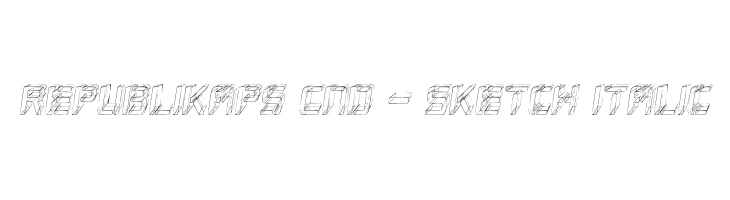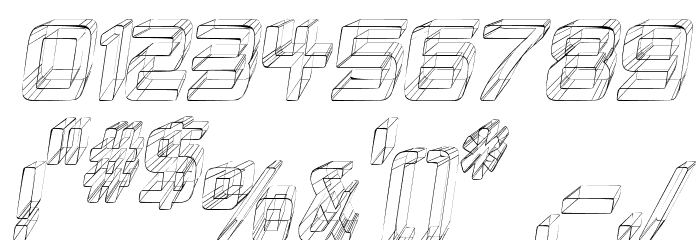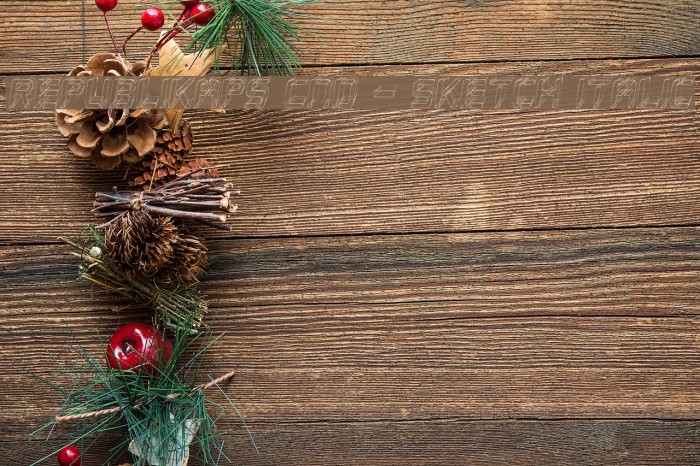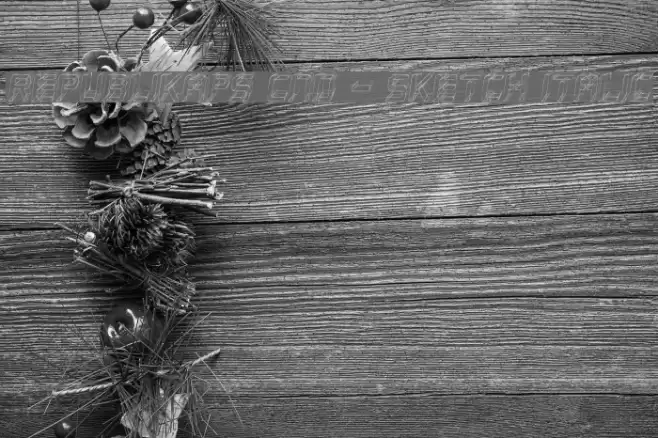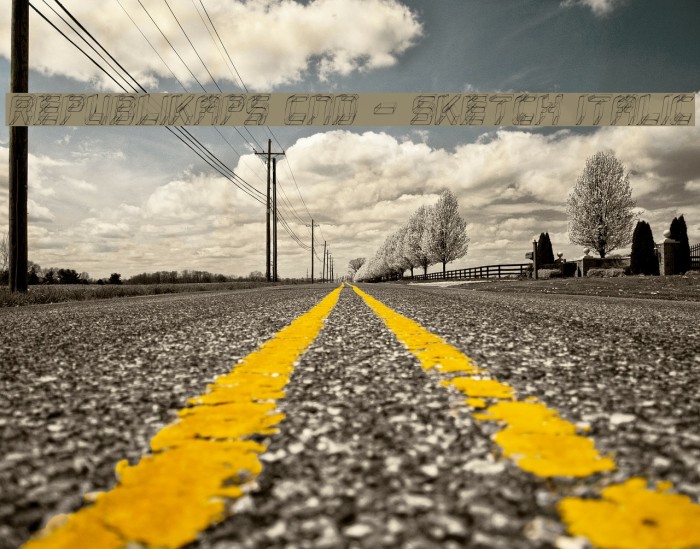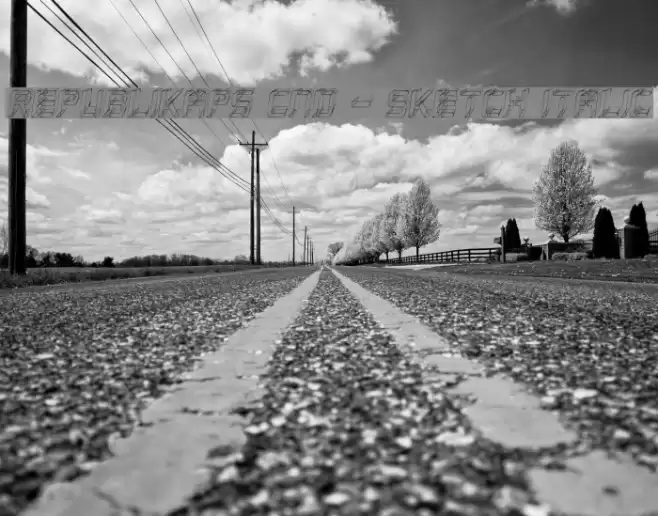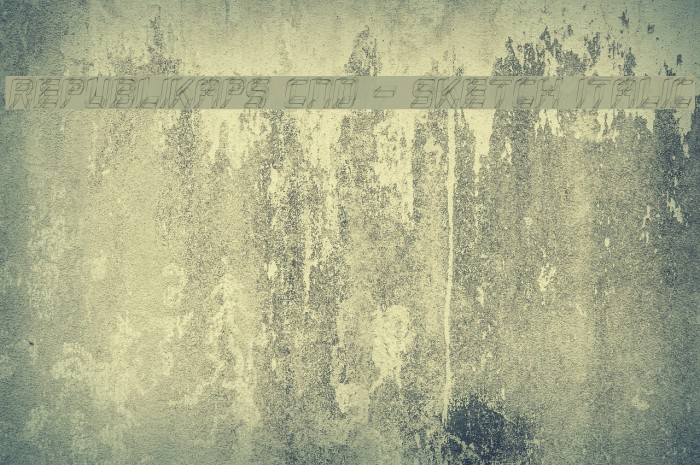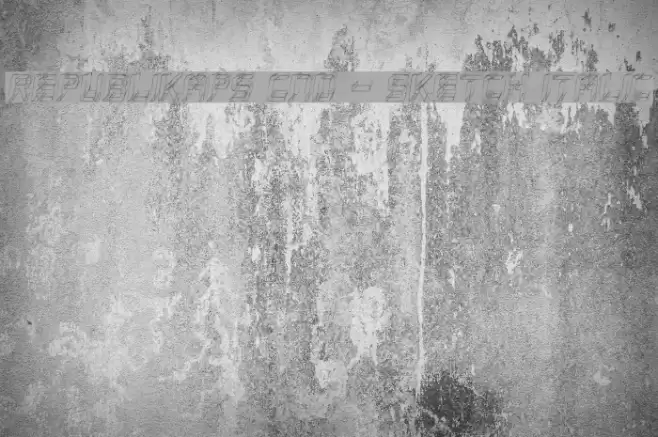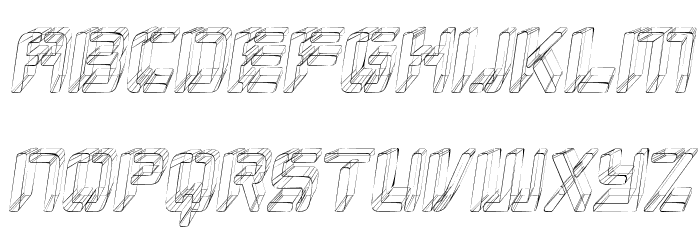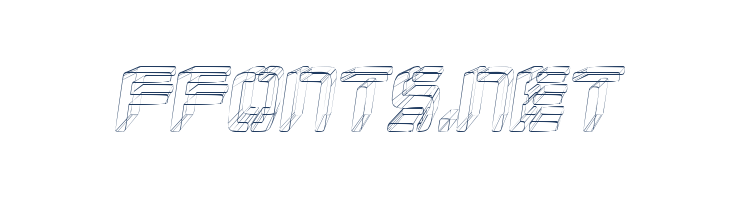
Republikaps Cnd - Sketch Italic Font
| Anwendungsfall | Headlines, Logos, Creative projects |
| Vorgeschlagene Projekte | Ideal for creative projects such as posters, album covers, and digital artwork where a modern and artistic touch is desired. |